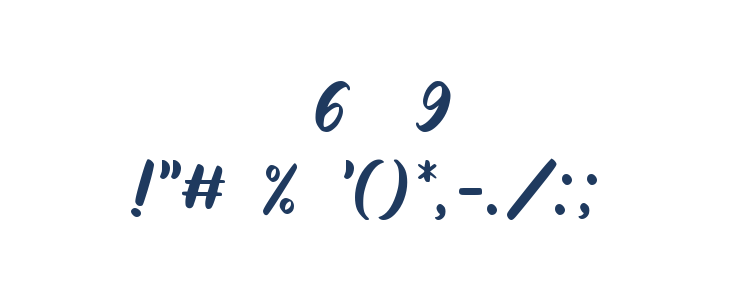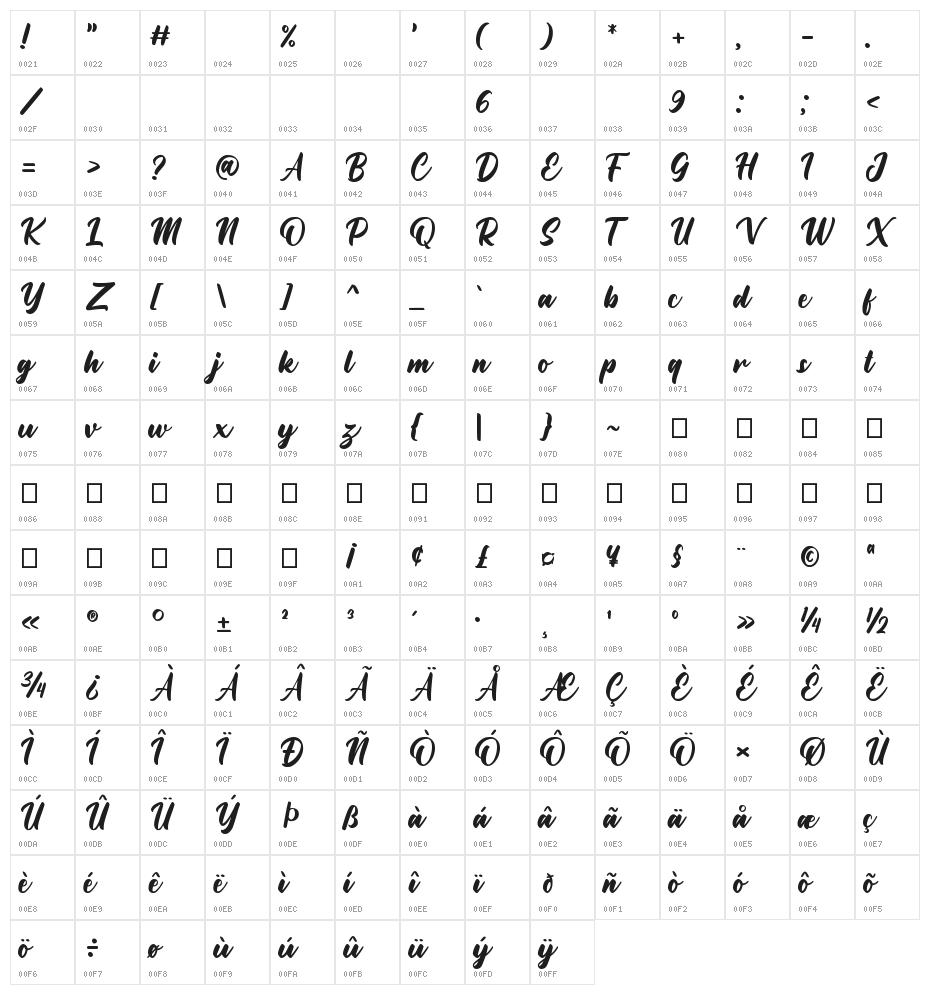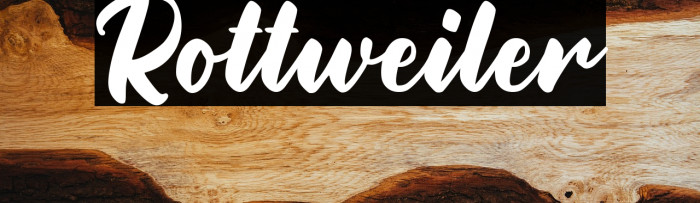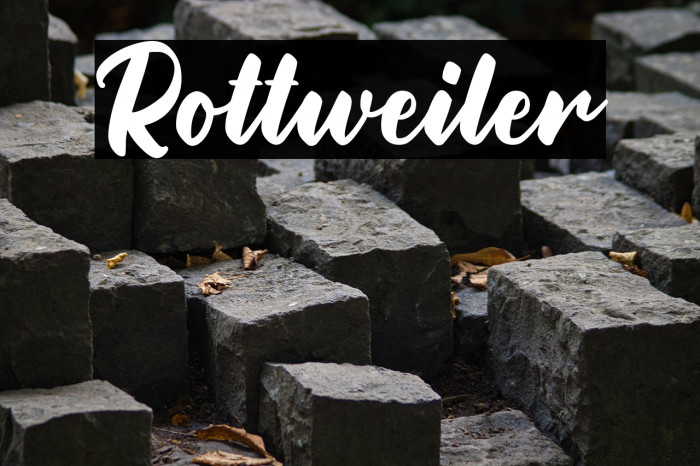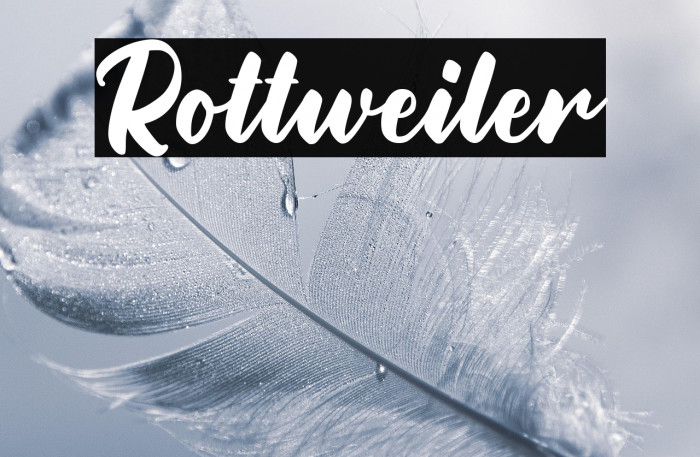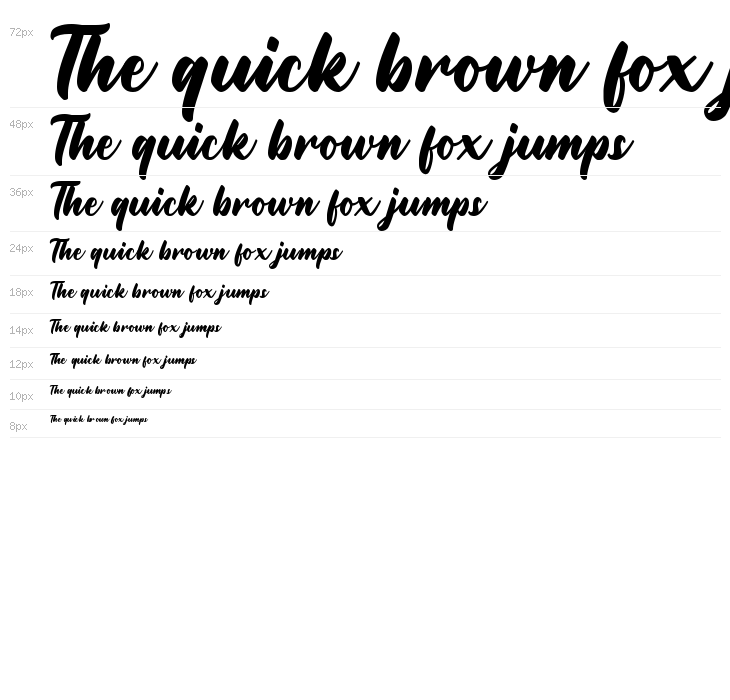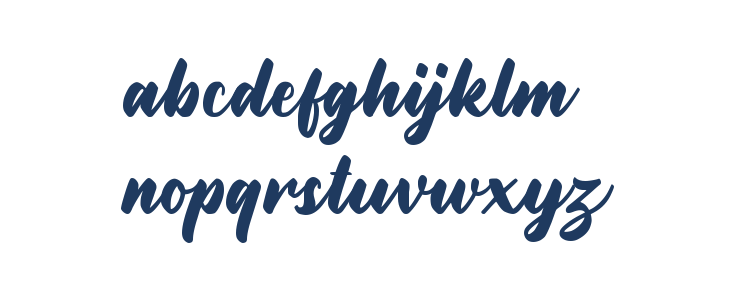
Rottweiler Font
Rottweiler Description
This font features a bold, cursive style with a strong emphasis on fluidity and elegance. The uppercase letters are tall and slightly slanted, giving a sense of movement and grace. The lowercase letters maintain a consistent flow, with smooth curves and rounded edges that enhance readability. Numbers and special characters are designed to complement the overall aesthetic, maintaining the same bold and flowing characteristics. The font's design is both modern and timeless, making it versatile for various applications.